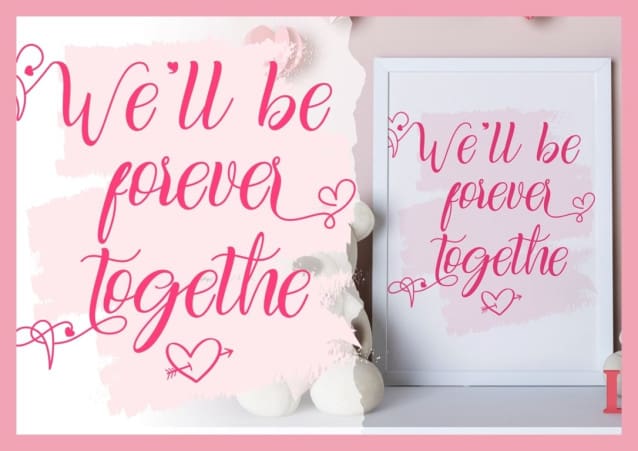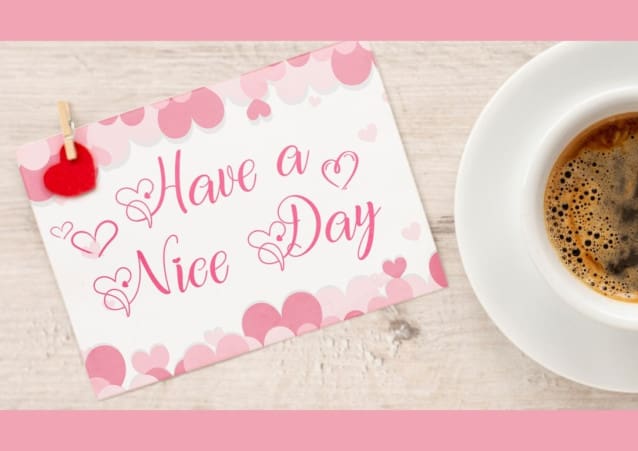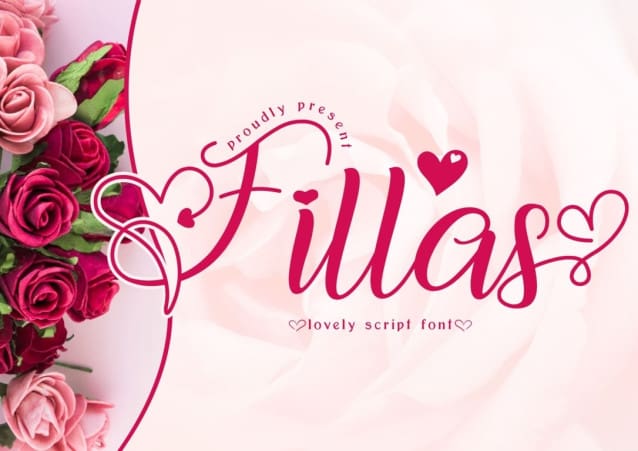
Fillas Script Font
Fillas Script Font, the ideal font choice for infusing your special occasions with a romantic essence. Whether you’re designing wedding invitations, save the date cards, fine art prints, feminine branding materials, or personalized gift cards, this script font will add an exquisite touch of elegance and charm to your projects. Unleash your creativity and let the enchanting allure of Fillas Script shine through, allowing you to create stunning and romantic designs that capture the hearts of your audience.